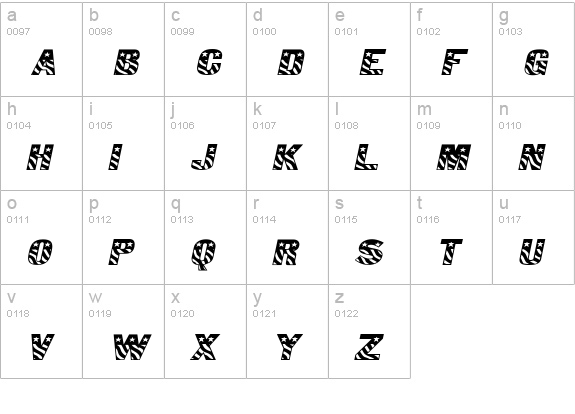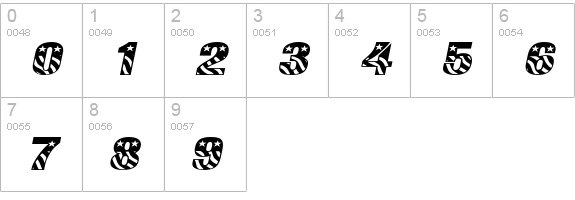
Bunting 1Extended Italic is a distinctive, extended-width, italic variant in the Bunting typeface family \xE2\x80\x94 well suited to design and typography projects.
Bunting 1Extended Italic font offers a unique and stylish design that is perfect for adding a touch of elegance to your projects. This elegant and sophisticated font features sleek and slanted letterforms that exude a sense of modernity and sophistication. With its extended characters, Bunting 1Extended Italic is ideal for creating eye-catching headlines, titles, and branding materials. What's even better is that Bunting 1Extended Italic font is available for free download at FontsMarket.com. You can easily access this stunning font and enhance your designs with its sleek and contemporary aesthetic. Whether you're working on a logo, website, or print materials, Bunting 1Extended Italic font is sure to elevate your design and leave a lasting impression on your audience. Download this beautiful font today and take your projects to the next level!